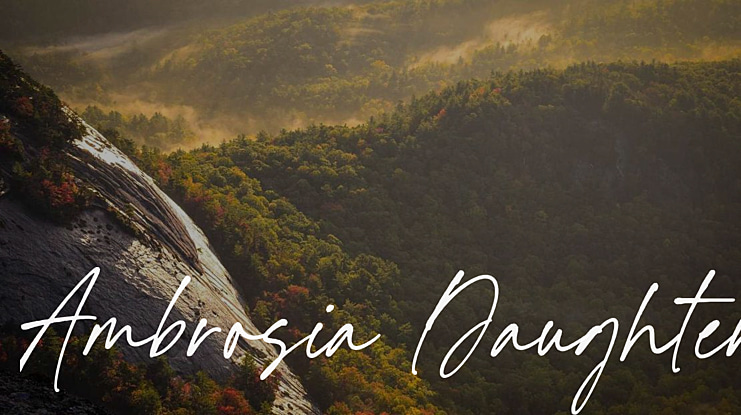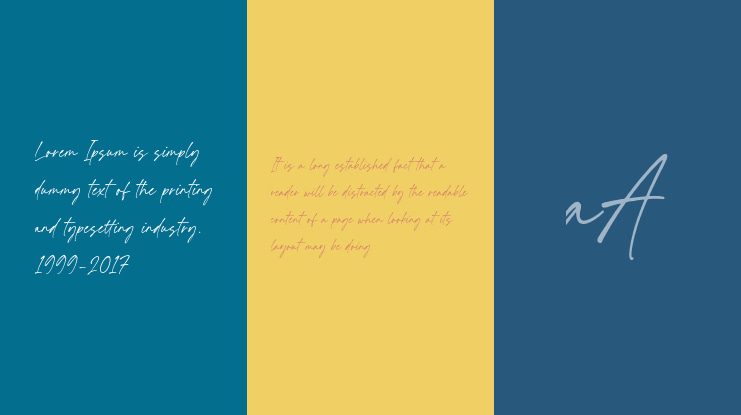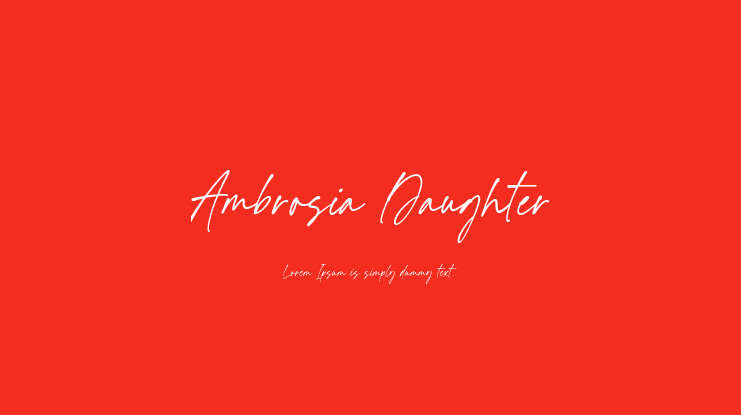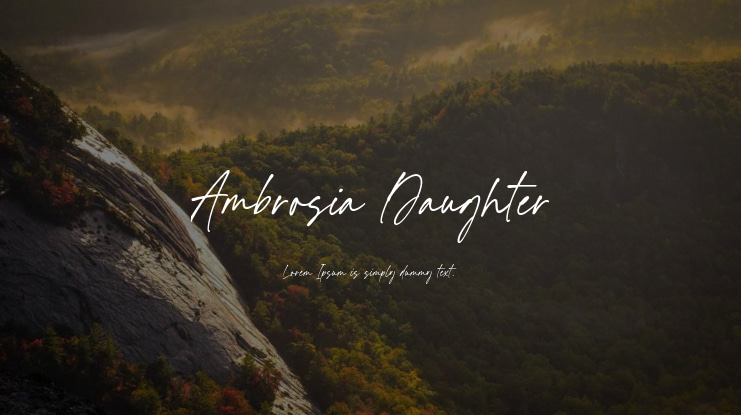
Ambrosia Daughter Font
Ambrosia Daughter Handwritten Font is a modern and fresh script font that will bring a warm and inviting feel to your business. It's perfect for product packaging, branding projects, magazines, social media, weddings, or simply to add expressive words to your designs.
Key Features of Ambrosia Daughter Font:
• Full set of standard alphabet and punctuation.
• Supports multiple languages.